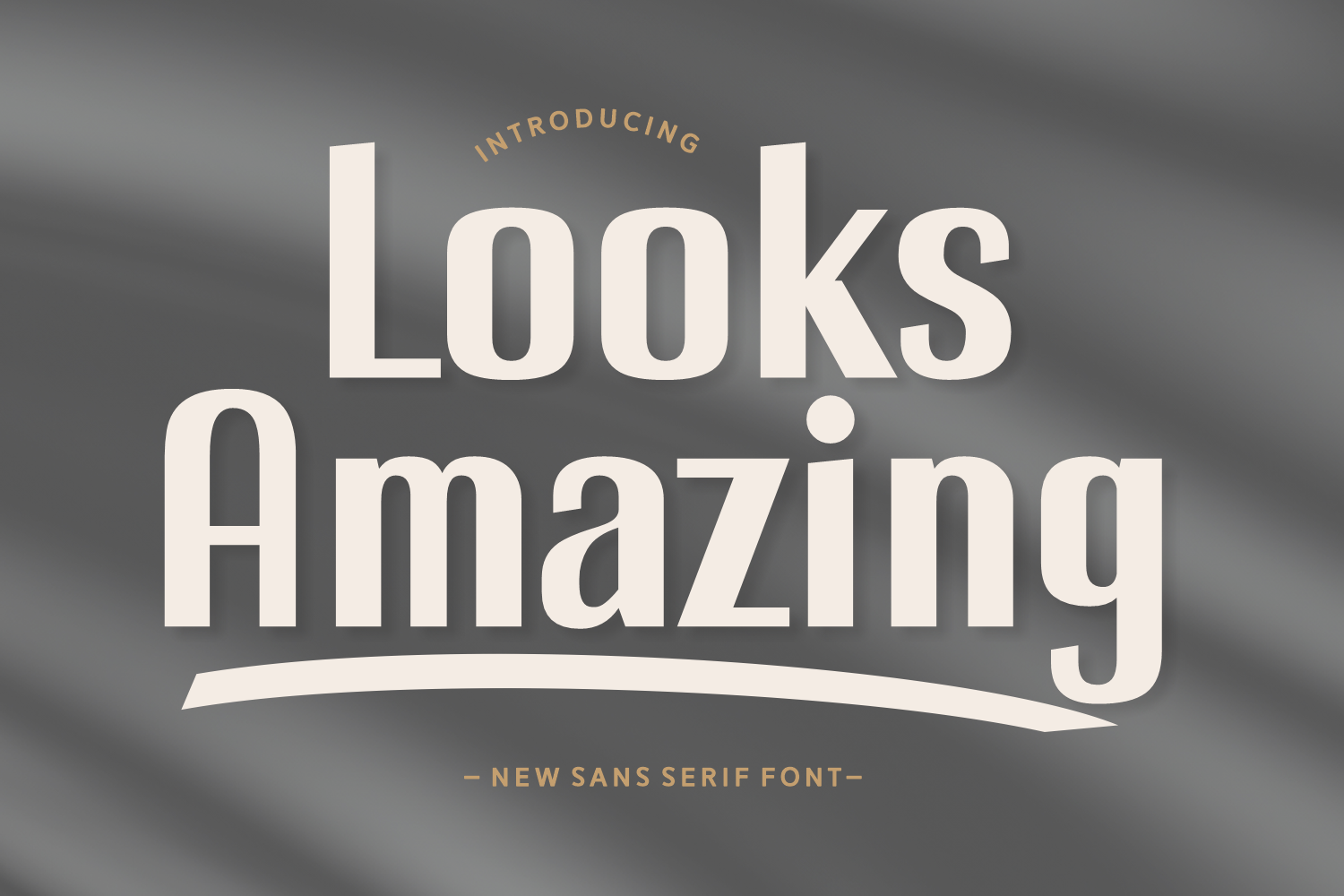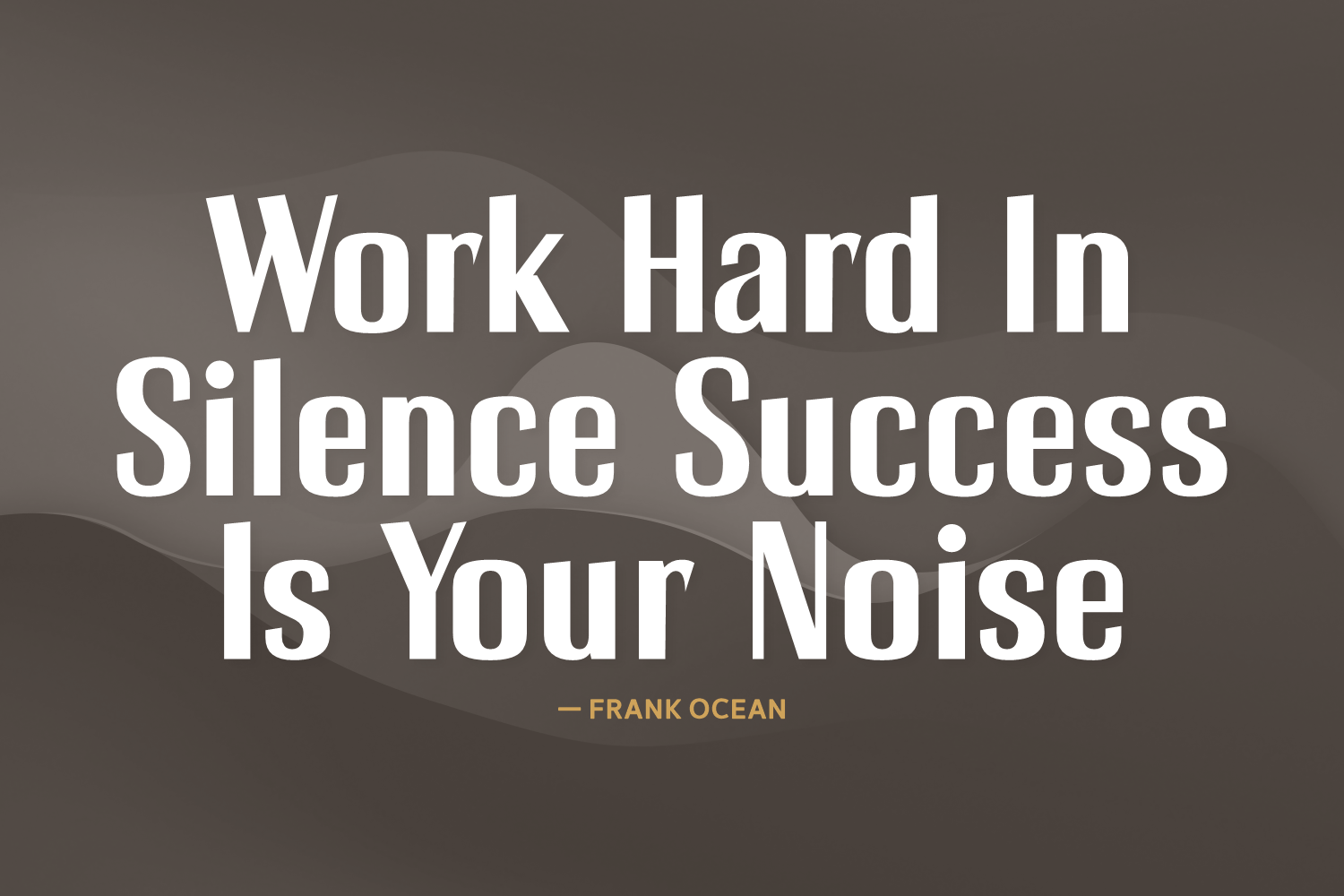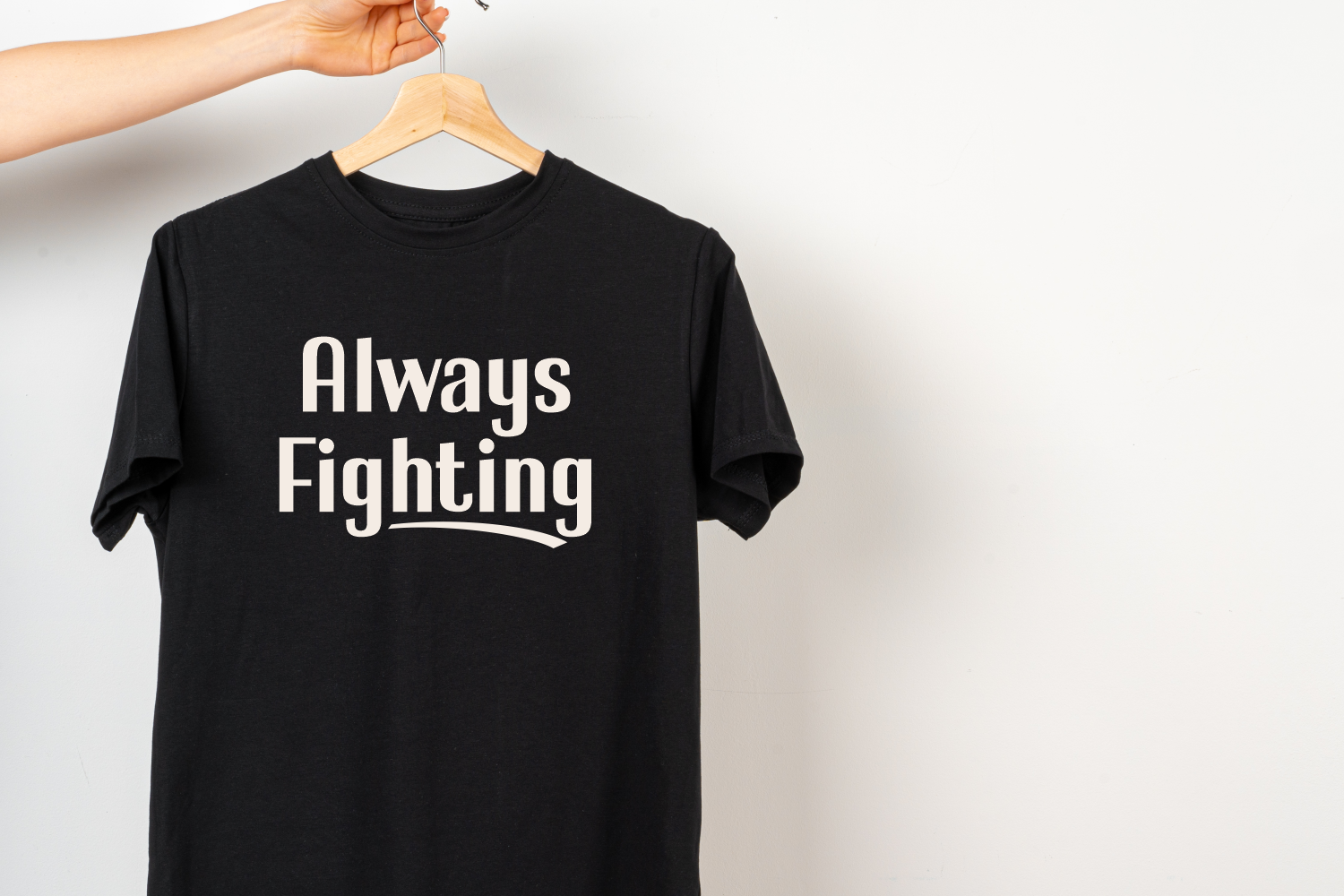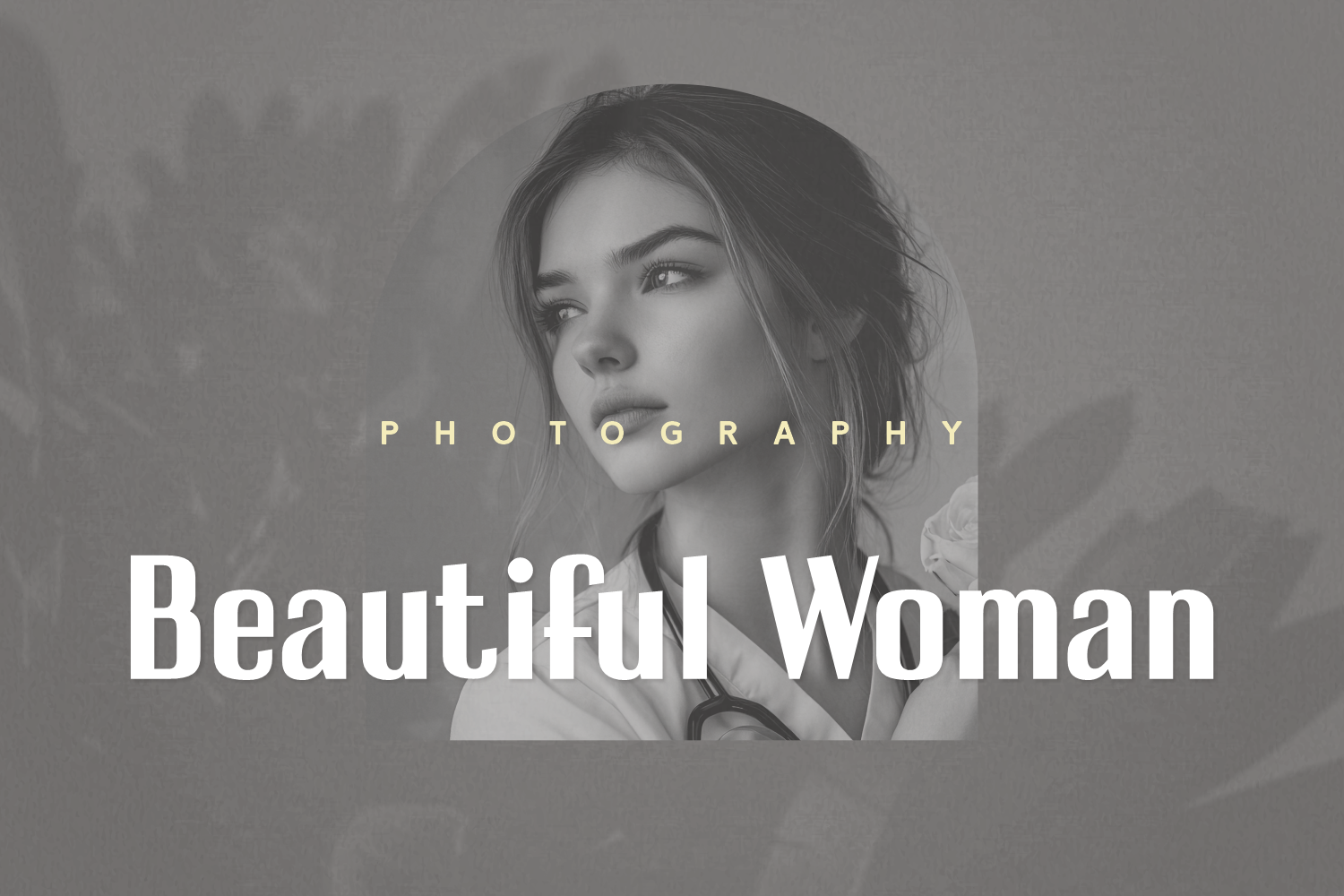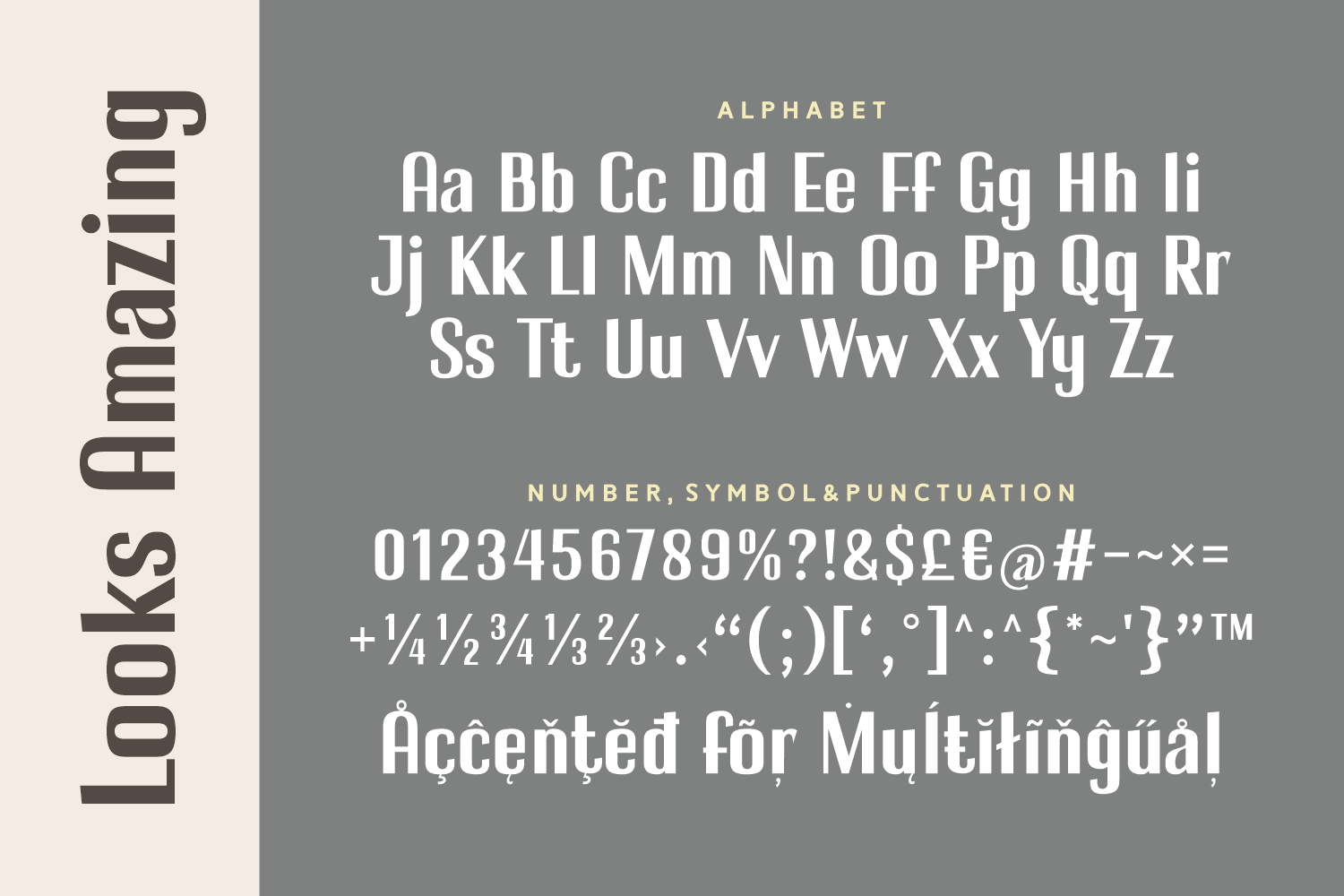
Looks Amazing
Looks Amazing is a stylish sans-serif font that fuses vintage elegance with modern clarity. With its flared elements and bold presence, it’s ideal for branding, packaging, and editorial headlines that need to feel timeless and bold.